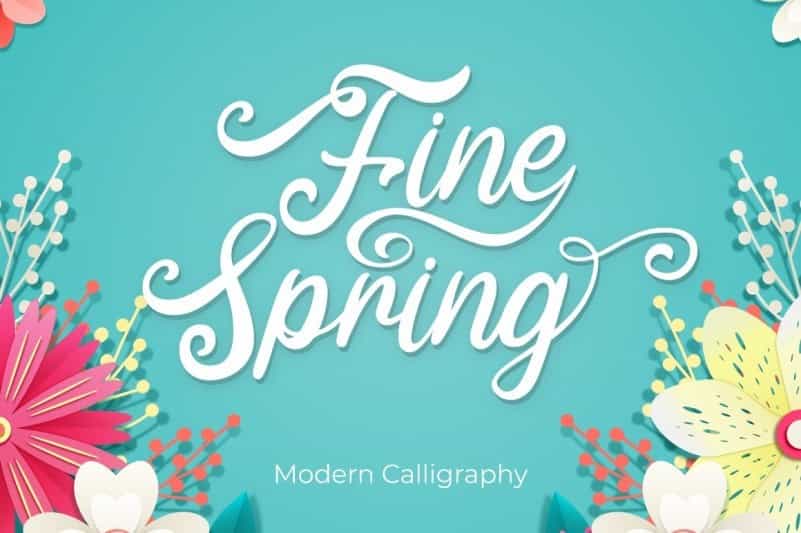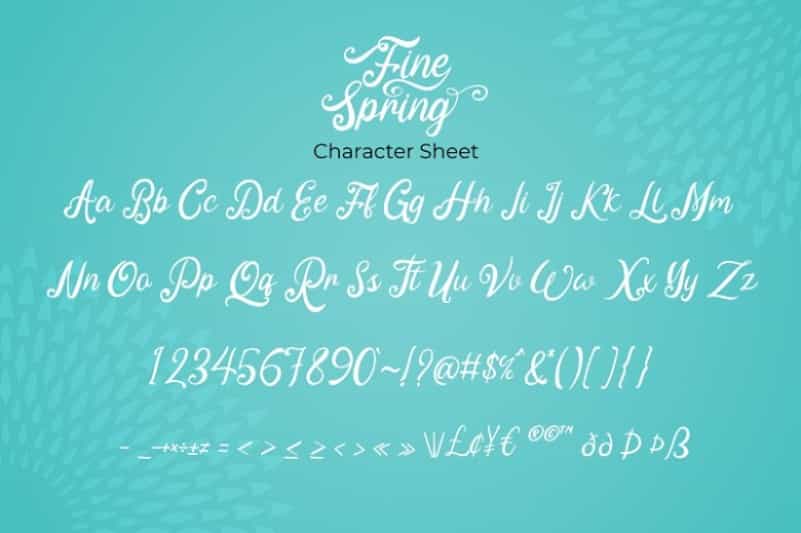
Fine Spring Font is a calligraphy script font that has a sort of delicate feel to it. You can use it in making wedding invitations, stationary art pieces. It is also very suitable for grabbing attention on social media platforms as well as for creating lovely greeting cards.